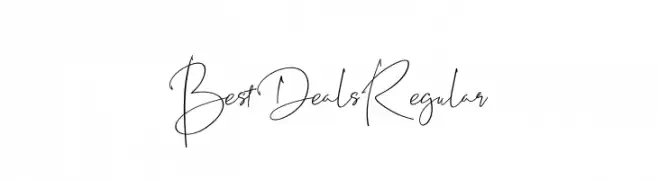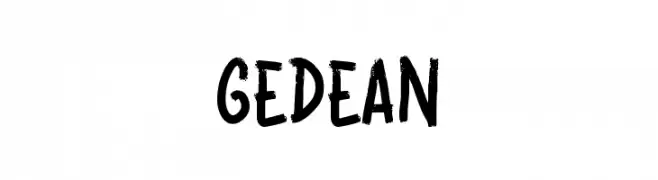
A delicate, flowing handwritten font with elegant, thin strokes.
A geometric, angular font with a modern and edgy style.
An elegant script font with flowing curves and decorative flourishes.
A bold, distressed font with a vintage, rugged appearance.
A bold, modern sans-serif font with a strong, impactful presence.
A bold, dynamic script font with a modern and elegant style.
A bold, aggressive font with sharp, jagged edges, perfect for impactful designs.
A bold, hand-drawn font with a rugged, artistic style.
A bold, hand-drawn font with a playful and textured brush stroke style.
A playful, rounded typeface with a bold and friendly appearance.